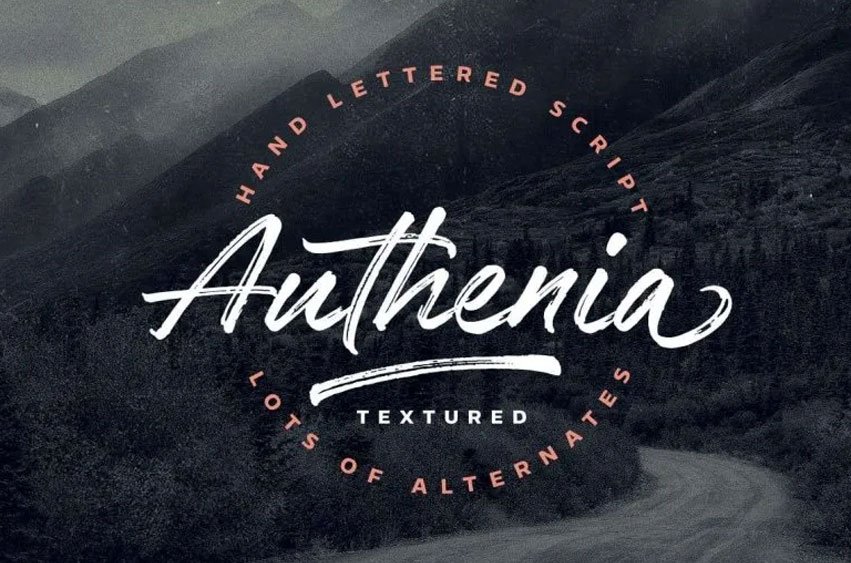
Authenia Font is an lively brush script crafted with a brush pen on paper. After digitizing these letters are meticulously traced into vector format with the amount of detail retained to ensure it looks good in both large and small sizes. Giving Authenia its genuine, natural and laid back charm.
Authenia features two sets of lowercase letters for a feel. Writing variety. Contextual Alternates accessible, on the OpenType menu enable these sets to appear. Additionally there are underlines and stylistic options to enhance your design and text with added flair.